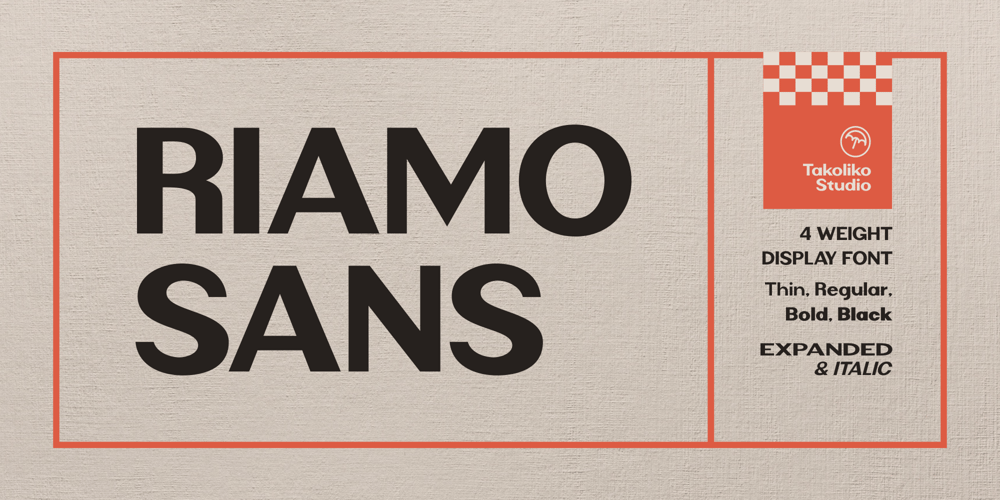
Riamo Sans
Riamo Sans font
Riamo Sans Font Family was designed by Deni Hidayat and published by takoliko. Riamo Sans contains 16 styles and family package options. Introducing Riamo Sans, an artisan-crafted Sans Serif typeface. This versatile font effortlessly combines a pinch of vintage charm with modern sophistication. Riamo Sans showcases four unique weights, providing added flexibility and depth to your design work. With expanded and italic versions also included, Riamo Sans is poised to add an exquisite touch to your creative canvas. Embrace the perfect blend of past and current with this beautifully crafted font.